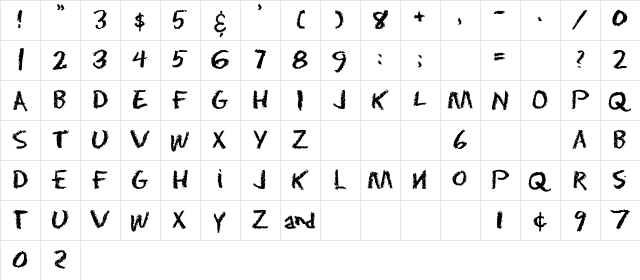
Eraser Regular Free Font
Eraser Regular
Eraser Family
Design Context for Eraser
Eraser is a composed and adaptable typeface that performs quietly and consistently across a wide range of design contexts.